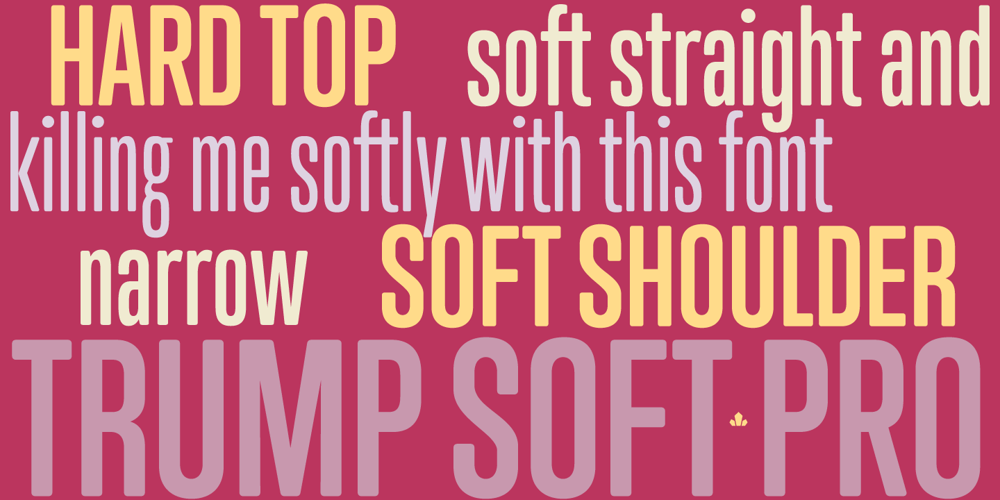
Trump Soft Pro
Trump Soft Pro font
Trump Soft Pro Font Family was designed by Georg Trump, Stanislav Maršo, Patrick Griffin and published by Canada Type. Trump Soft Pro contains 6 styles and family package options. Trump Soft Pro is the softer, round-cornered version of Trump Gothic Pro, the popular condensed gothic seen on films, magazines, book covers and frashion brands all over the globe. Trump Soft offers a friendlier grade of the same economic functionality, clear modular aesthetic and extended character sets as Trump Gothic. The sharper Trump Grothic series is a reconception of ideas from Georg Trump’s seminal 1955 Signum typeface and its later reworking (Kamene) by Czech designer Stanislav Marso. Originally cobbled together for a variety of film projects in the late 1990s and early 2000s, the Trump Gothic family was made available for the general public in 2005. Shortly thereafter, it became extremely popular. It continues to be used extensively today. In 2013, the typeface was redrawn, refitted, optimized and greatly expanded into a multiscript family of six fonts, each containing over 1020 glyphs and a wealth of OpenType features, including small caps, caps-to-small-caps, stylistic alternates, unicase/monocase alternates, fractions, ordinals, class-based kerning, and support for Latin, Cyrillic and Greek locales.